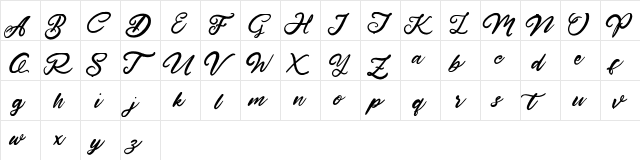
Hardest Style Demo Regular
| Foundry | Putra Khan |
| Designer | Putra Khan |
Design Context for Hardest Style Demo Typeface
Hardest Style Demo is a composed and adaptable typeface that performs quietly and consistently across a wide range of design contexts.